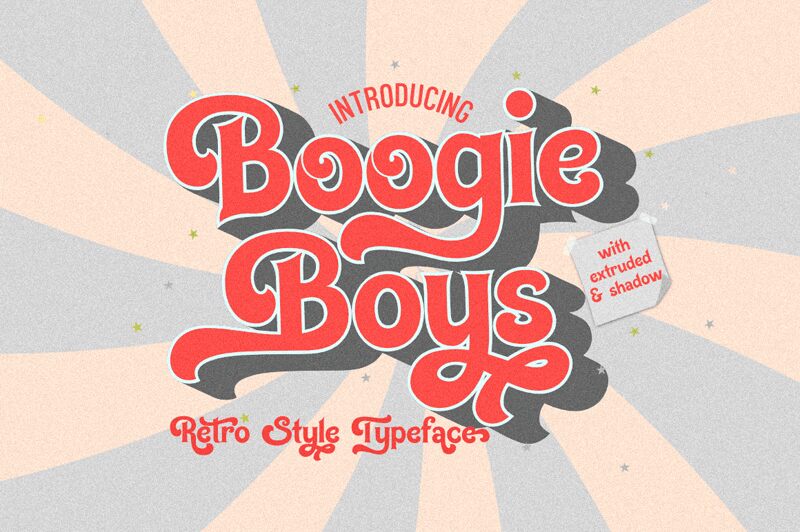
The Boogie Boys Shadow font exudes a captivating retro-inspired charm, with its bold, groovy letterforms and dynamic, shadowy appearance. Designed by Onne Hermawan, this display font effortlessly captures the essence of a bygone era, evoking a sense of nostalgia and vibrant energy. Its striking silhouette and distinctive character shapes make it a standout choice for those seeking to infuse their designs with a touch of vintage flair.
The Boogie Boys Shadow font's versatility extends across a wide range of applications, from eye-catching headlines and impactful logos to retro-themed branding and vintage-inspired print materials. Its bold, attention-grabbing presence makes it a natural fit for projects that aim to capture a retro aesthetic, whether it's a music festival poster, a retro-style product packaging, or a vintage-inspired website design.
Boogie Boys Shadow